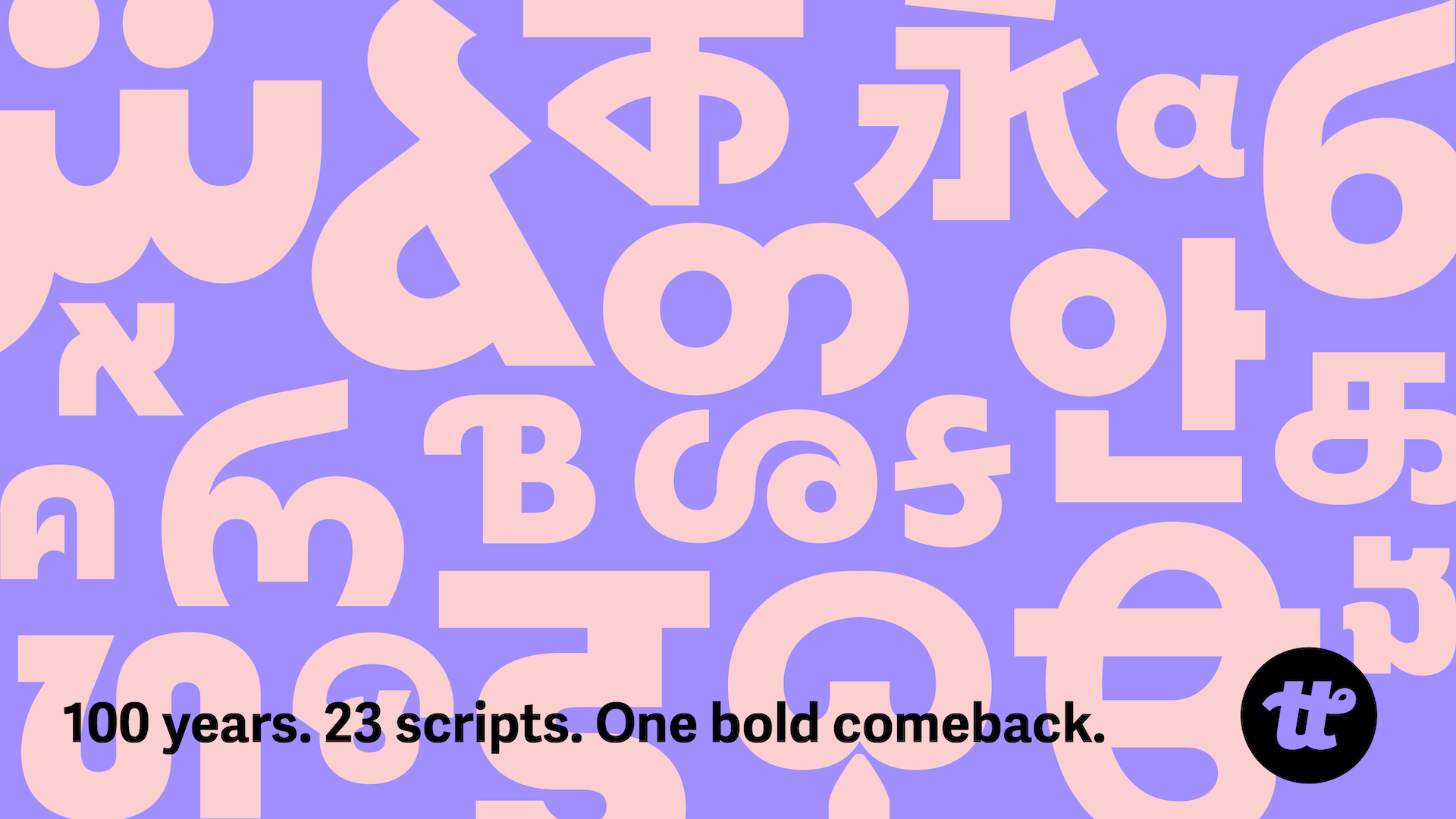
A century-old design icon gets a radical global reboot.
Staying true to a collaborative design philosophy, a worldwide team of type designers, consultants, and technicians has come together to create the most ambitious iteration of this font to date – one that spans 23 writing systems and supports over 90% of the world’s population.
Though this typeface once journeyed beyond earth, it had yet to reach everyday life in places like India, Laos, Armenia, or Vietnam. That changes now. With sensitivity to local scripts and cultures, this evolution expands the original vision into a truly democratic typographic system.
This session reveals how a typographic classic was reengineered for the 21st century: across cultures, across scripts, across continents.
Because good design shouldn’t stop at borders.